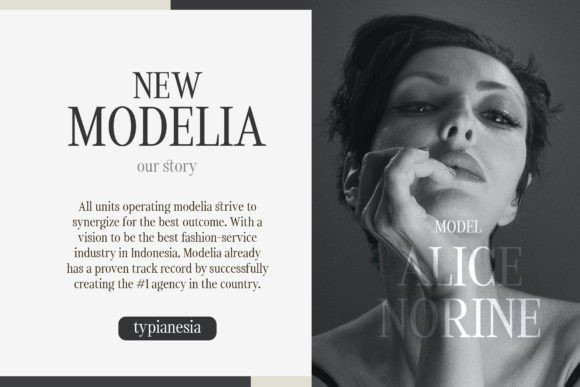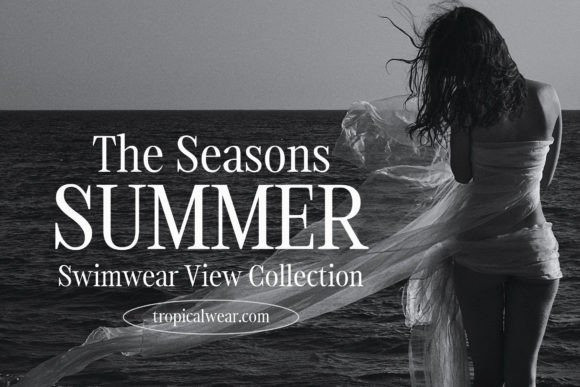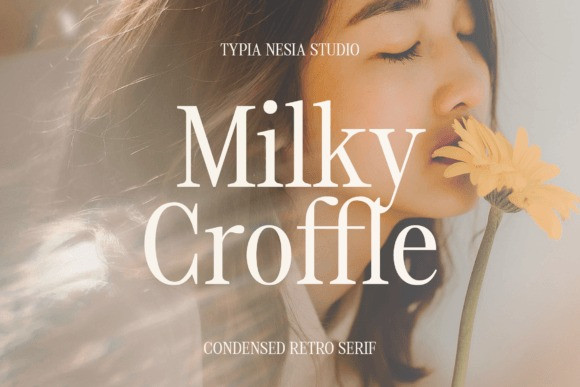
Milky Croffle Font
Milky Croffle Font is a classic retro vibe serif font that exudes beauty, luxury, and elegance. With its fancy and refined design, this font adds a touch of sophistication to any project. Milky Croffle is perfect for various applications, including branding, logos, packaging, editorial designs, and more. Its distinctive features include elegant serifs, clean lines, and graceful curves that evoke a sense of timeless beauty. MilkyCroffle’s expertise lies in delivering a luxurious and captivating typography experience, making it a top choice for designers who want to create designs with a classic retro aesthetic.
Step into the world of timeless beauty with Milky Croffle’s classic retro vibe.